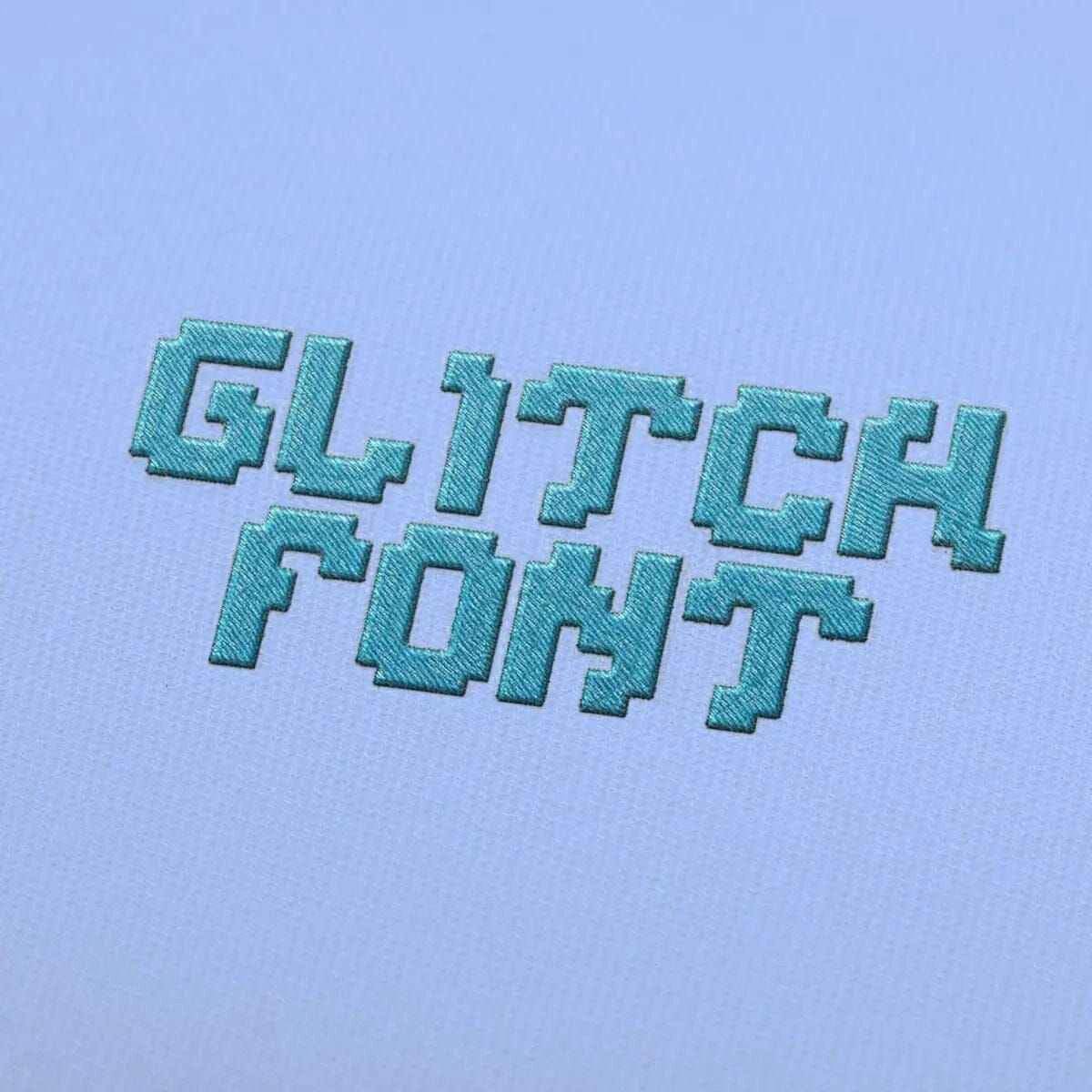
Unleash your creativity with the Glitch Embroidery Alphabet Font Set – where elegance meets high-quality craftsmanship!
Introducing the Glitch Embroidery Alphabet Font Set, a stunning collection of embroidery designs that promises to add a touch of sophistication to your projects. Whether you are looking to create personalized gifts, unique home decor, or simply elevate your embroidery skills, this font set is the perfect choice for you. With a variety of sizes available, from 4x4 inches to 8x8 inches, you can find the ideal fit for any project.
Why You'll Love This Design
The Glitch Embroidery Alphabet Font Set is not just about style; it is designed with functionality in mind. Each letter has been crafted to ensure crisp, clear outlines and a polished finish. You'll appreciate the delicate details that make every letter pop, offering versatility that transcends genres, whether for casual or formal projects.
Creative Applications
This font set opens a world of possibilities for your creative projects. Use it to embellish everything from apparel and accessories to home textiles. Imagine customizing tote bags, t-shirts, or even table linens with personalized monograms or inspirational quotes. The versatility of the Glitch design allows you to express your individuality and creativity effortlessly.
Digitized for Passionate Embroiderers
At Finery Embroidery, we know the joy and satisfaction that comes from working with quality embroidery designs. We carefully digitize each letter in the Glitch Embroidery Alphabet Font Set, ensuring it works seamlessly with various embroidery machines. We’ve seen our customers transform their ideas into beautiful, tangible art with our designs, and we can't wait to see what you create!
- Designed for both beginners and seasoned embroiderers to enjoy.
Unleash your creativity with the Glitch Embroidery Alphabet Font Set – where elegance meets high-quality craftsmanship!
Introducing the Glitch Embroidery Alphabet Font Set, a stunning collection of embroidery designs that promises to add a touch of sophistication to your projects. Whether you are looking to create personalized gifts, unique home decor, or simply elevate your embroidery skills, this font set is the perfect choice for you. With a variety of sizes available, from 4x4 inches to 8x8 inches, you can find the ideal fit for any project.
Why You'll Love This Design
The Glitch Embroidery Alphabet Font Set is not just about style; it is designed with functionality in mind. Each letter has been crafted to ensure crisp, clear outlines and a polished finish. You'll appreciate the delicate details that make every letter pop, offering versatility that transcends genres, whether for casual or formal projects.
Creative Applications
This font set opens a world of possibilities for your creative projects. Use it to embellish everything from apparel and accessories to home textiles. Imagine customizing tote bags, t-shirts, or even table linens with personalized monograms or inspirational quotes. The versatility of the Glitch design allows you to express your individuality and creativity effortlessly.
Digitized for Passionate Embroiderers
At Finery Embroidery, we know the joy and satisfaction that comes from working with quality embroidery designs. We carefully digitize each letter in the Glitch Embroidery Alphabet Font Set, ensuring it works seamlessly with various embroidery machines. We’ve seen our customers transform their ideas into beautiful, tangible art with our designs, and we can't wait to see what you create!
- Designed for both beginners and seasoned embroiderers to enjoy.